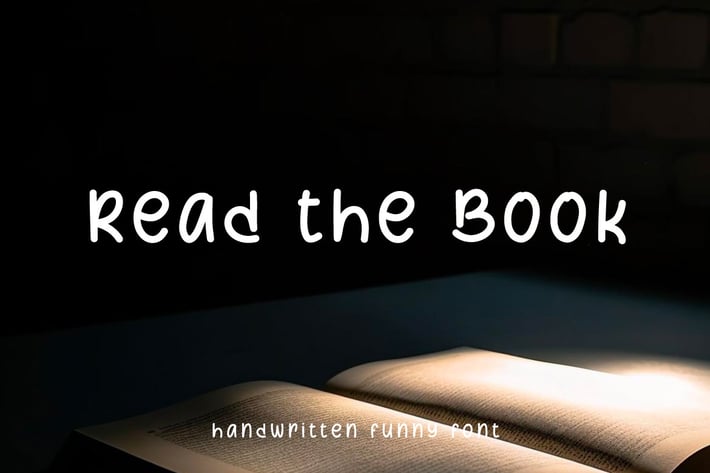
Read The Book - Quirky Funny Font
Hello! Read The Book is a quirky funny font.
Read The Book can be used in any works such as comic book, poster, school, flyer, book title, advertisement, social media content, logo and many more.